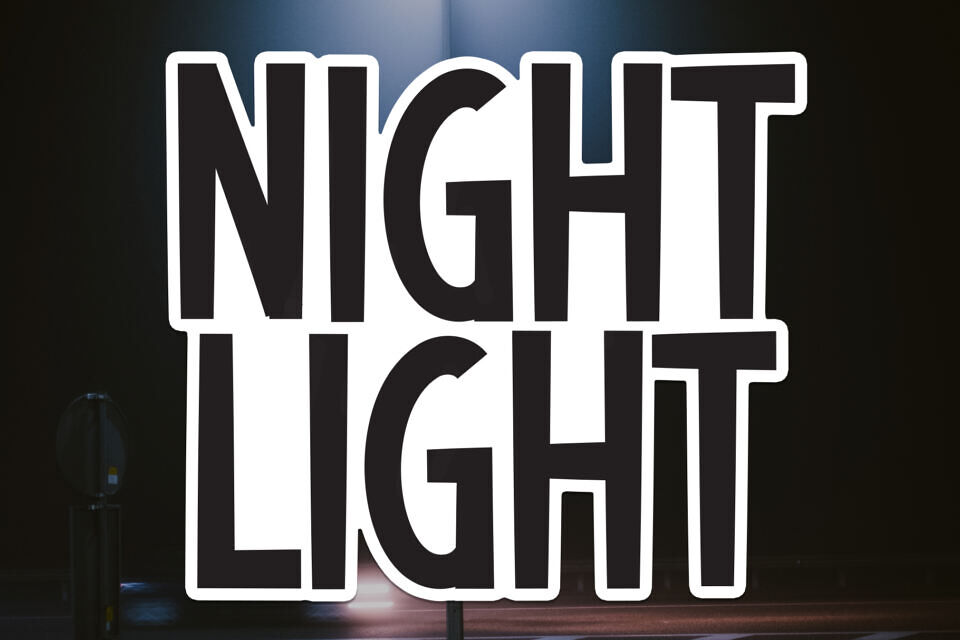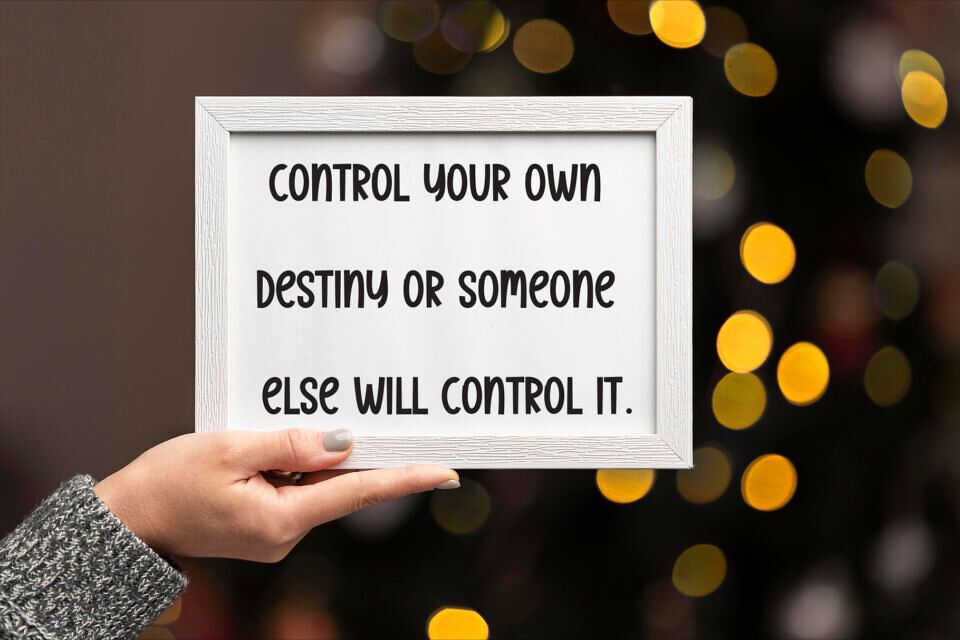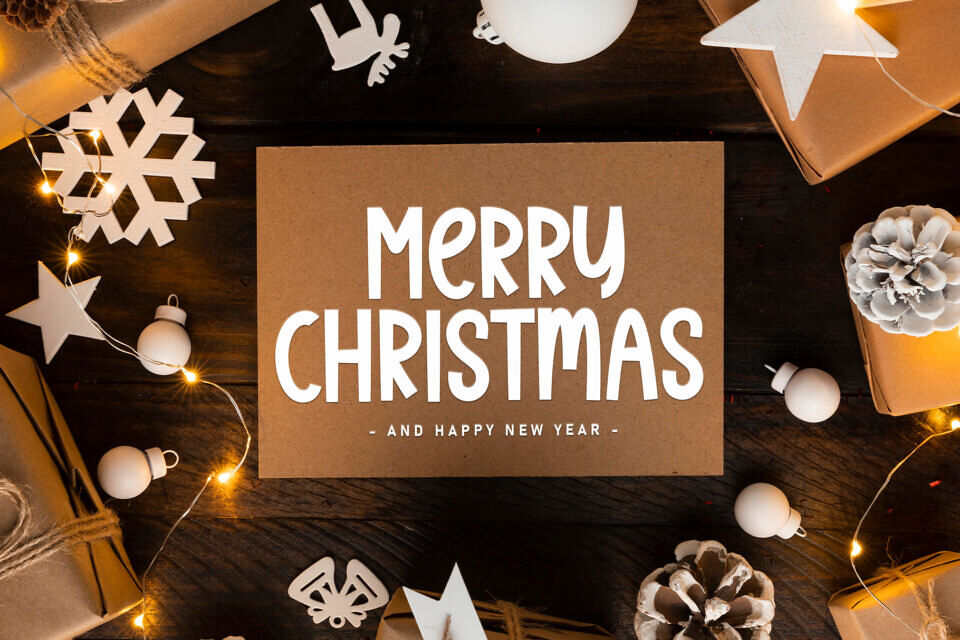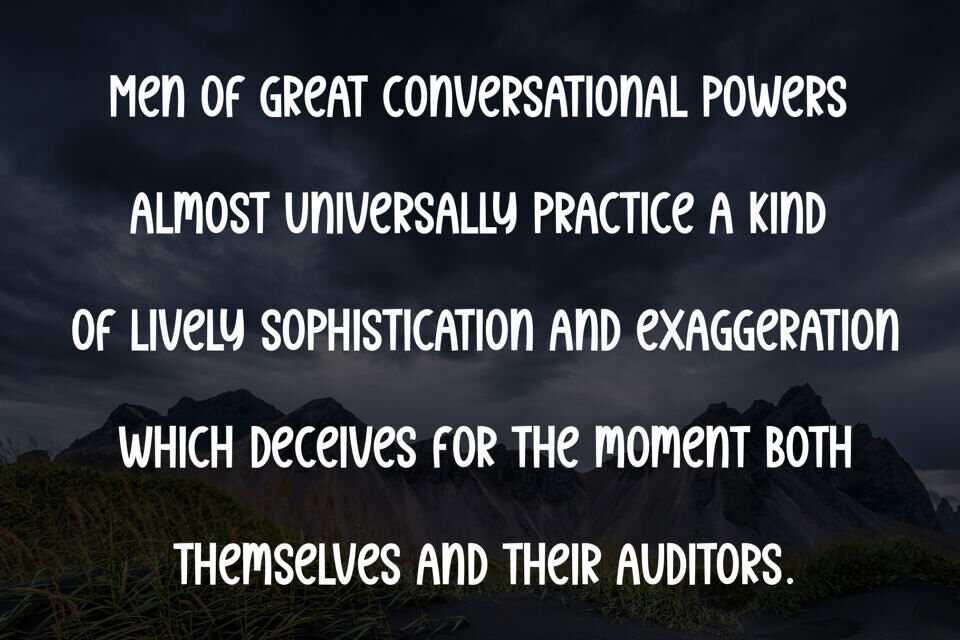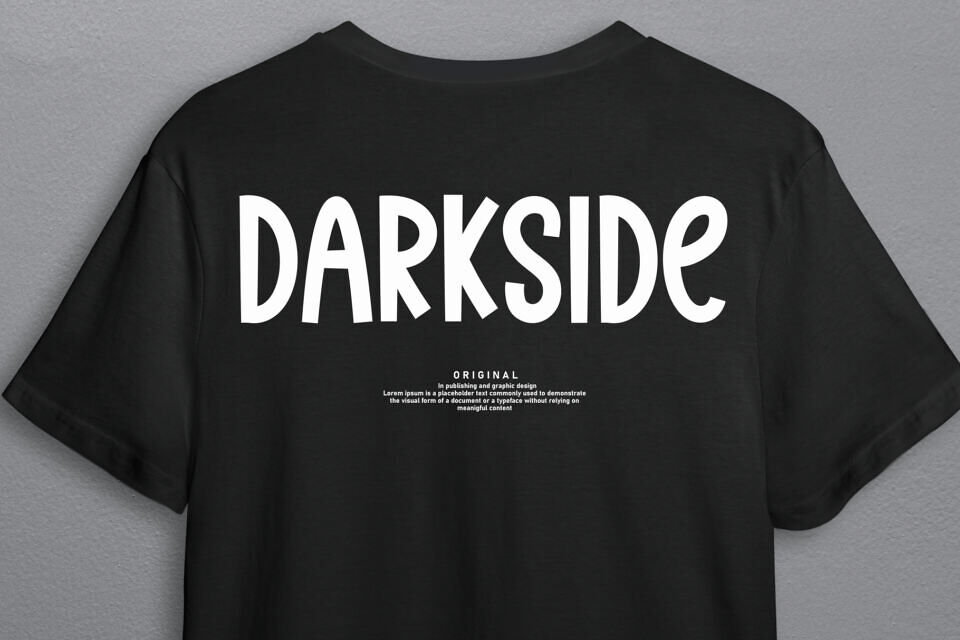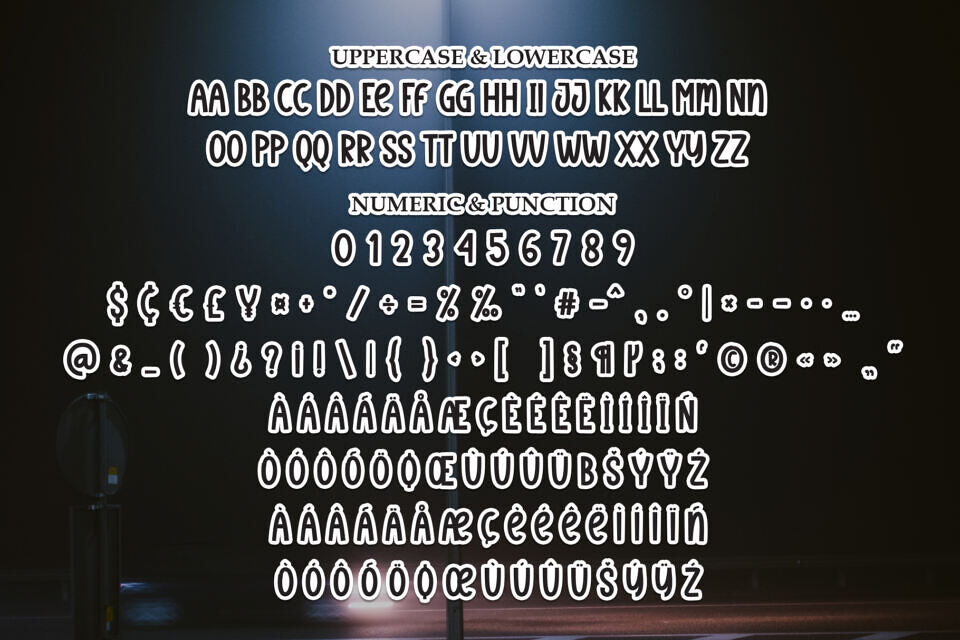
Night Light is a stylish script display font crafted by scratchones_creative, offering a modern handwritten aesthetic. Ideal for wedding invitations, social media graphics, product packaging, and branding, it adds a personal touch to any project.